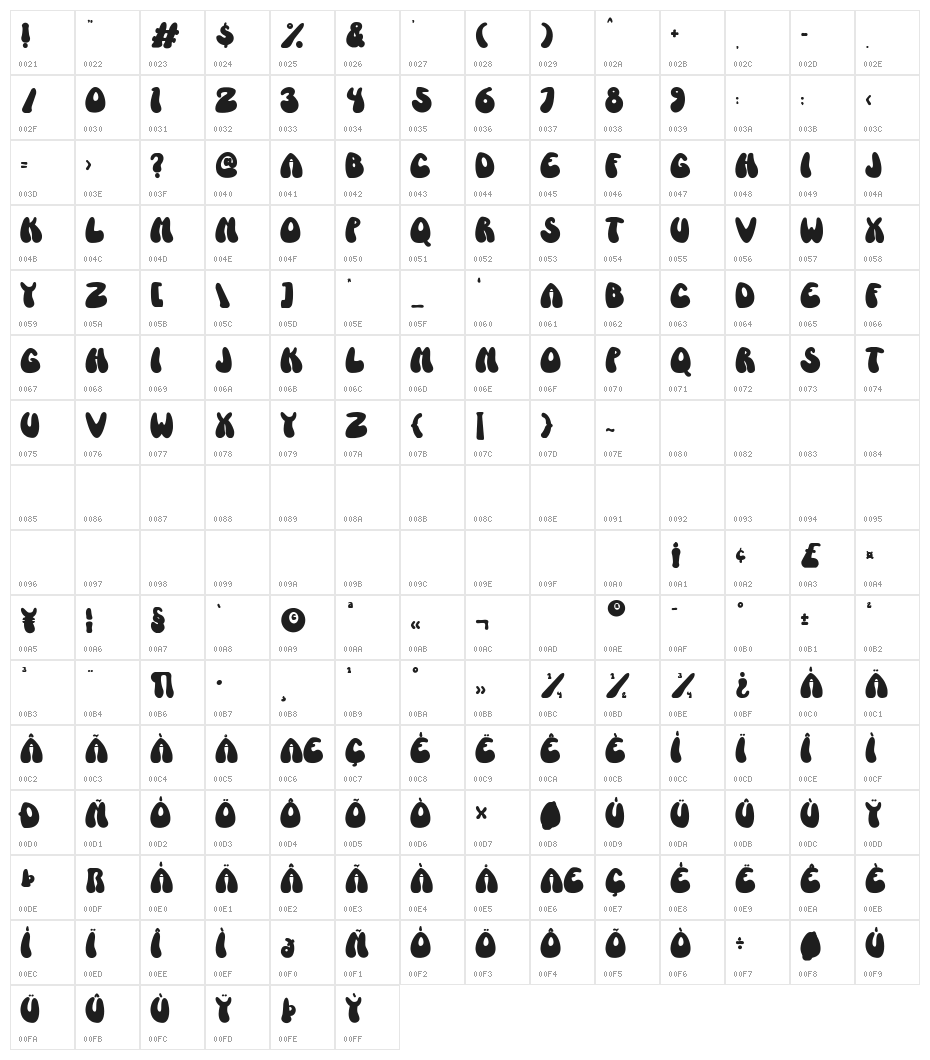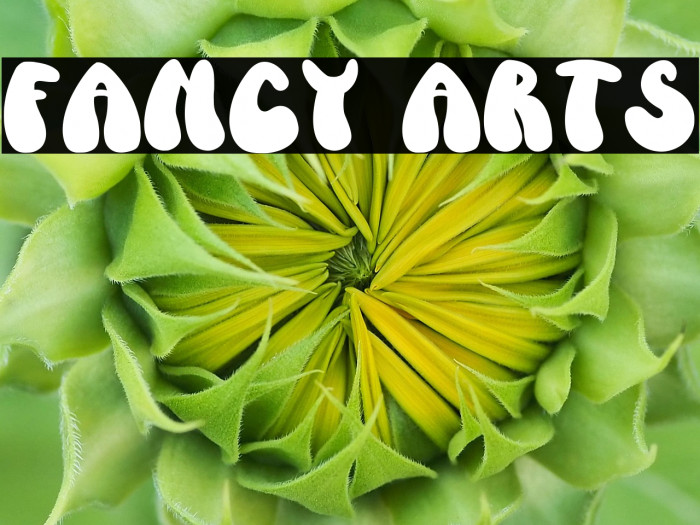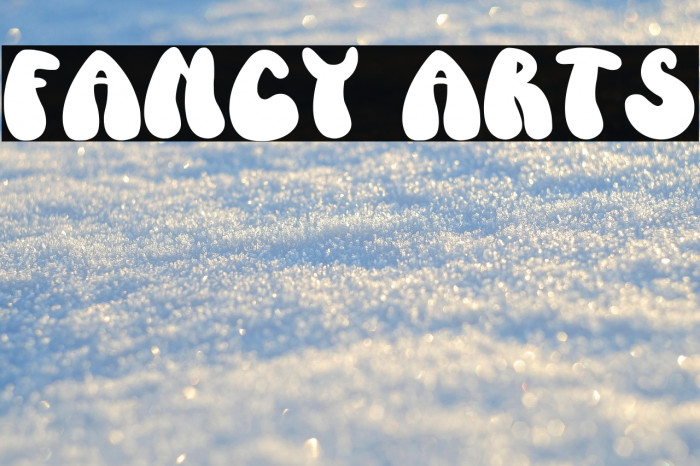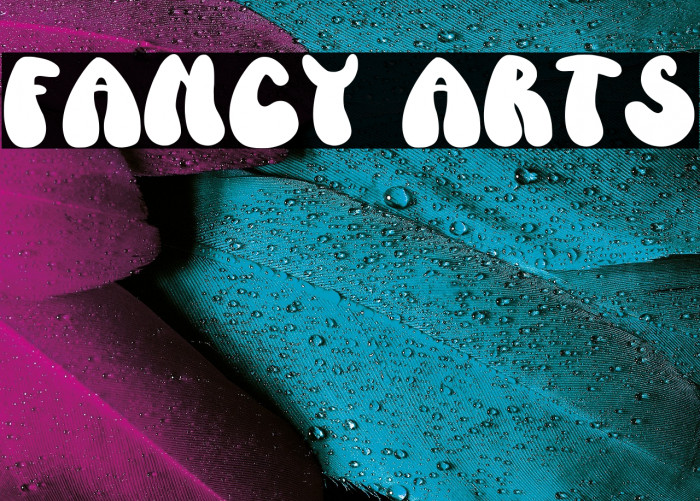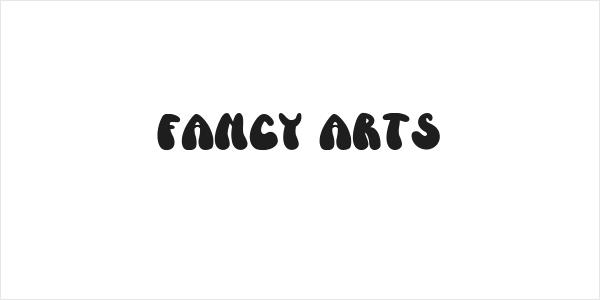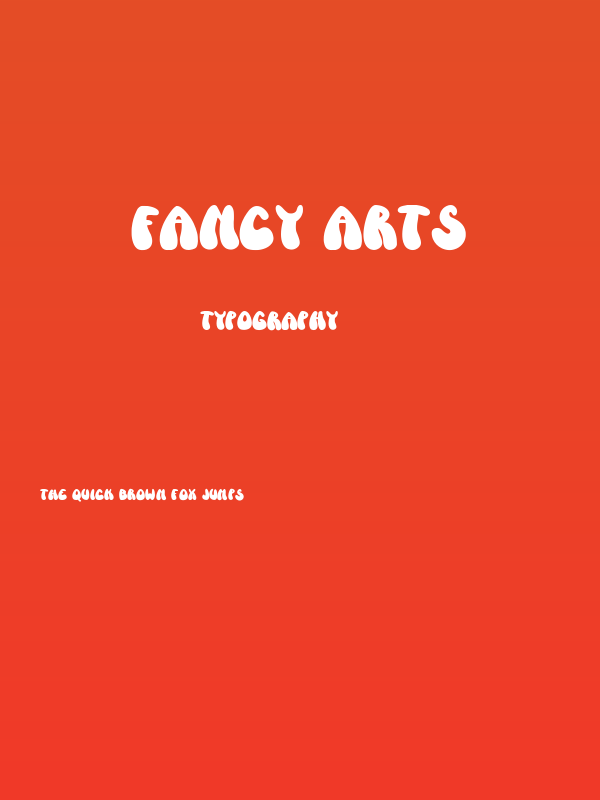
Fancy Arts Font
Fancy Arts Description
This font features a bold and playful design with thick, rounded strokes that give it a bubbly and whimsical appearance. The characters are uniformly wide, creating a sense of cohesion and balance across the alphabet. The font's style is reminiscent of retro and pop art influences, making it stand out with its unique and eye-catching form. The numbers and special characters maintain the same playful aesthetic, ensuring consistency throughout. Its boldness and distinctiveness make it suitable for creative and informal projects.
| Overall Style | Retro, Playful |
| Use Case | Logos, Posters, Headlines |
| Proposed Projects | Ideal for children's books, playful branding, party invitations, and retro-themed designs. |